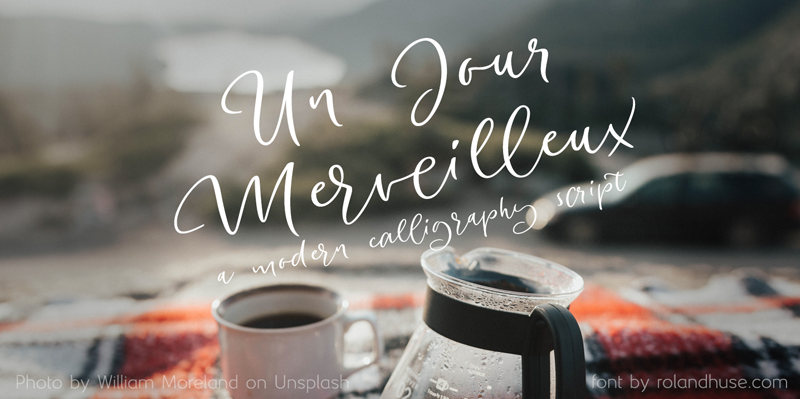
Preview and download Un Jour Merveilleux Font. Created by Runes & Fonts in Script Calligraphy styles with Demo license.
This is a demo version of �Un Jour Merveilleux� Modern Calligraphy Script Font. It means �A Wonderful Day� in French. notes to the user: � in the demo version lowercase stylistic alternates are limited to a b c e g l n o r s t v � standard ligatures are tt and ll For a nicer rhythm of large and small variations of letters following each other make sure you have the �contextual alternates� open type feature is enabled. � please also note that this is a demo version with limited open type features and is free for personal use only. � � � For full version and commercial license please visit https://rolandhuse.com or contact@rolandhuse.com The full / commercial version contains Western and Eastern European accented characters and special characters, punctuation and ligatures. The full version contains a stylistic set of all lowercase letters and more ligatures. Cheers, Roland Follow me on Instagram @rolandhusedesign subsribe to my Glyphs course workingwithglyphs.com |